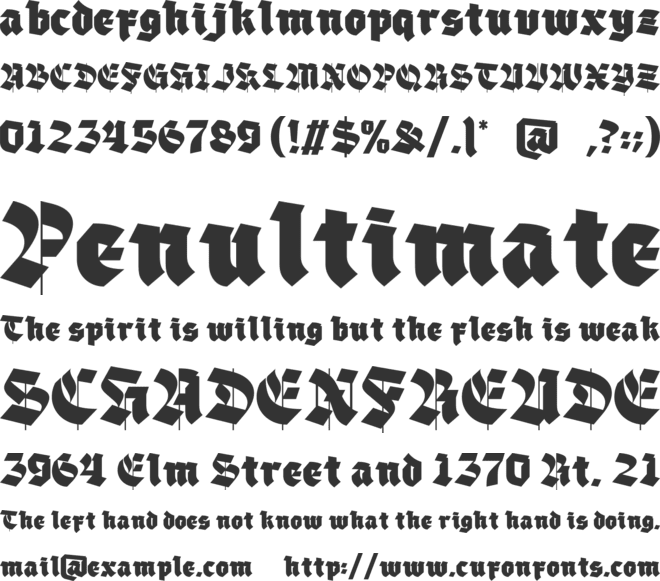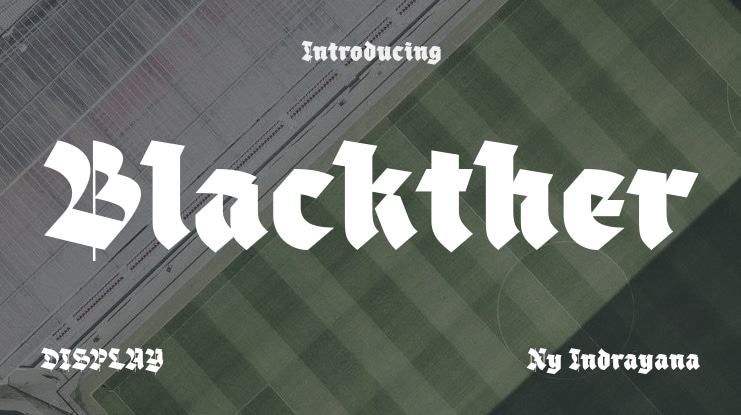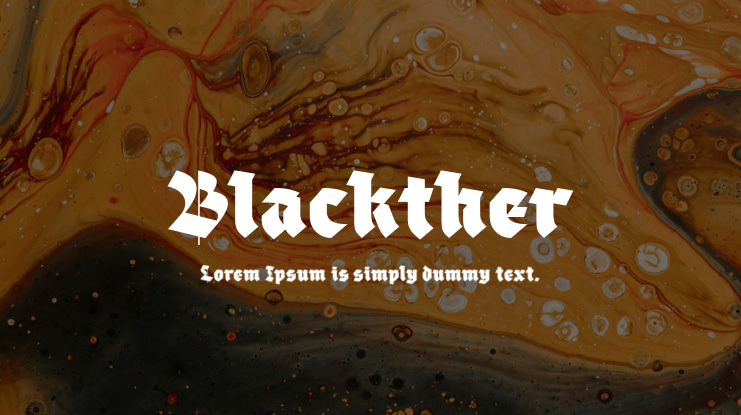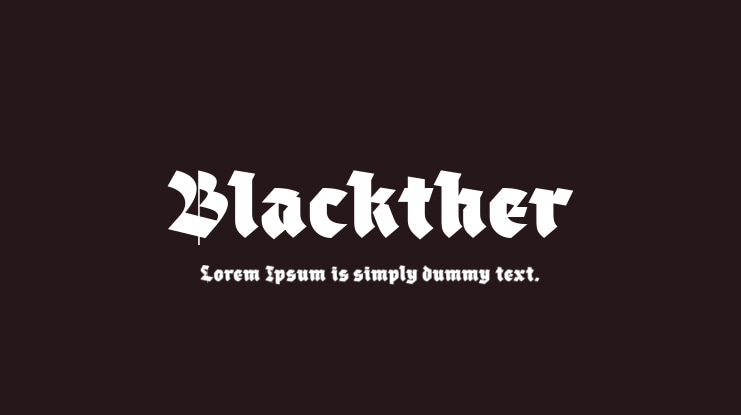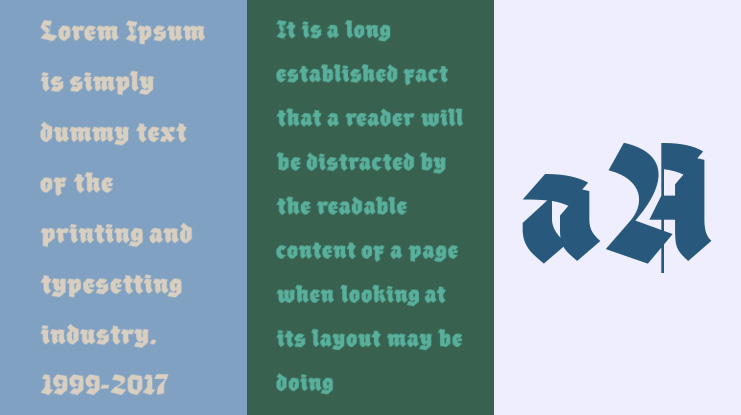
Blackther Font
Ny Indrayana
Introducing Blakther Typeface, a bold Blackletter font exuding timeless elegance and striking presence. With its commanding strokes and intricate details, Blakther Typeface adds a touch of sophistication to any design project.